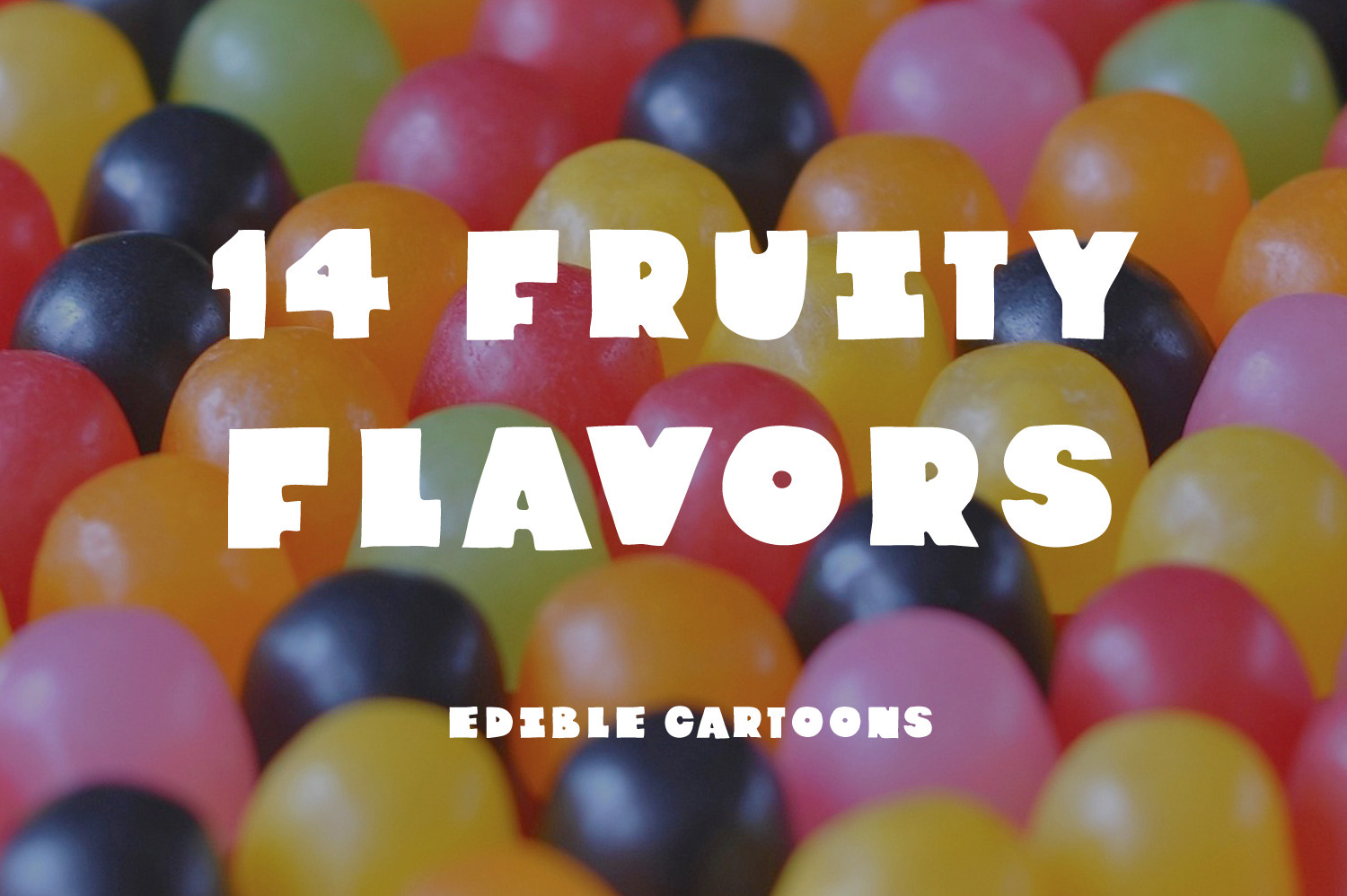
Fullford chunky font
Fullford is a font with double trouble. It comes in two distinct styles: STROKE and INNER.
Fullford is what you get when you fuse iconic cultural influences as scattered as skateboarding, zines, indie music, alternative fashion, bubblegum machines, vintage jazz records, and nods to historical visual movements from Pop art, comics, experimental films and hand-drawn cartoons.
People use this font for posters for it's strikingly thick impression. It's carries mass at smaller sizes, such as for pins and tiny stickers.
Stroke is an outlined style with the subtlest human warble to add character. Inner is the bold fully filled style that will catch eyes from a distance. The pair pack a punch spiked with a little attitude.